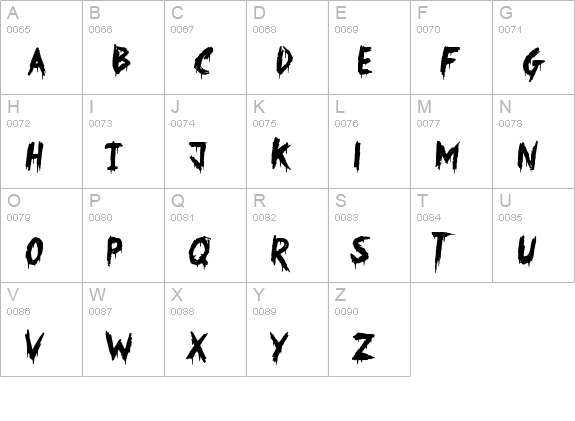
Frankenweenie Font Details
Introducing Frankenweenie font, a beautifully crafted typeface that pays homage to the eerie and enchanting world of Tim Burton's iconic animated film. With its whimsical and gothic charm, this font captures the essence of the beloved characters and hauntingly delightful atmosphere of Frankenweenie. Designed with meticulous attention to detail, Frankenweenie font features unique letterforms that blend classic typography with a touch of macabre. Each character is painstakingly hand-drawn, resulting in a font that is both visually captivating and versatile. Whether you're working on a Halloween-themed project, creating spooky invitations, or simply want to add a touch of whimsy to your designs, Frankenweenie font is the perfect choice. Its versatility allows it to be used for both headlines and body text, ensuring that your message is conveyed with maximum impact. What sets Frankenweenie font apart is that it is freely available to download at FontsMarket.com. This means that you can effortlessly incorporate this enchanting typeface into your creative endeavors without any cost or limitations. Whether you're a professional designer or a hobbyist, this font is easily accessible to all, allowing you to unleash your creativity without any boundaries. So, embrace the darkness and let your imagination soar with Frankenweenie font. Download it for free at FontsMarket.com and bring a touch of Burtonesque magic to your designs today.